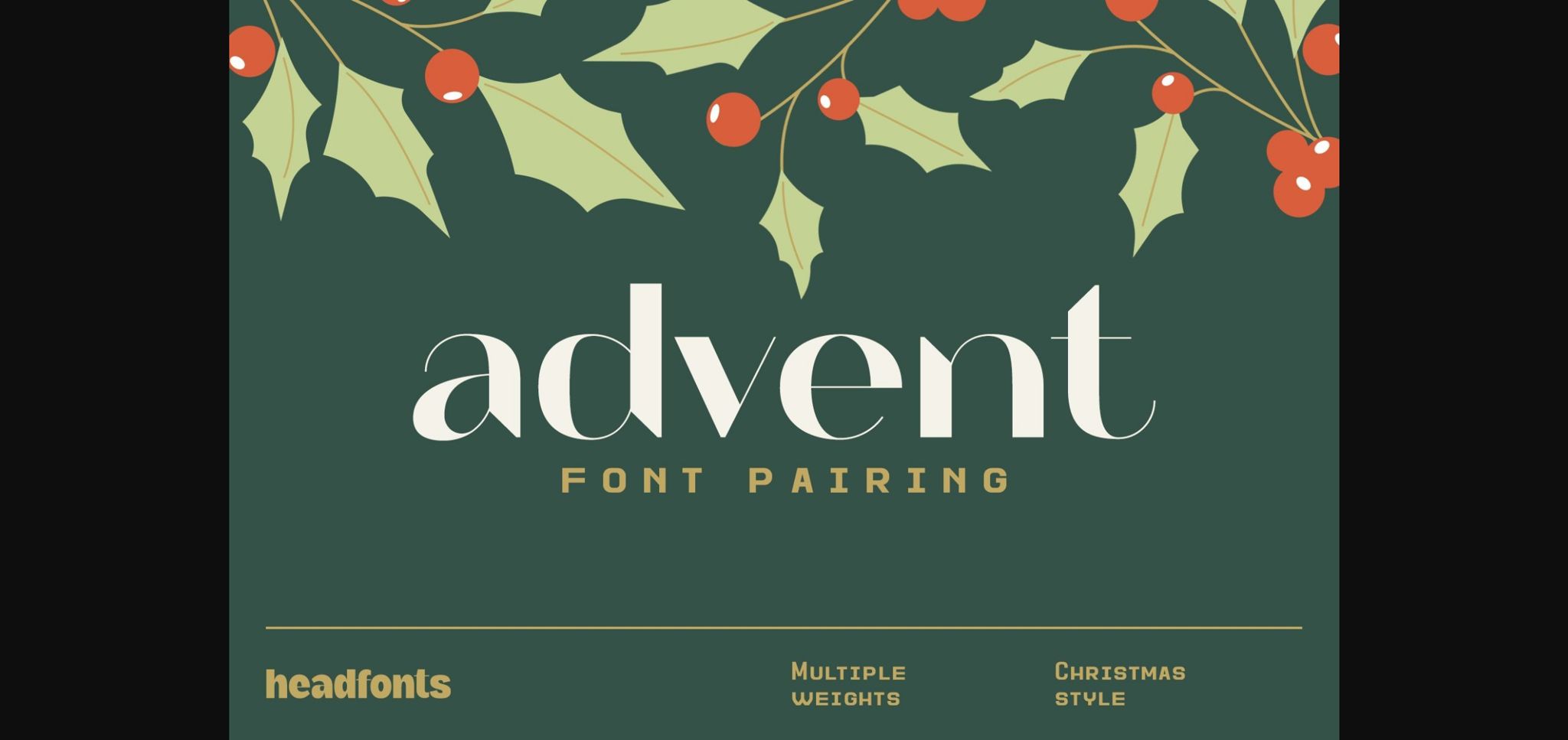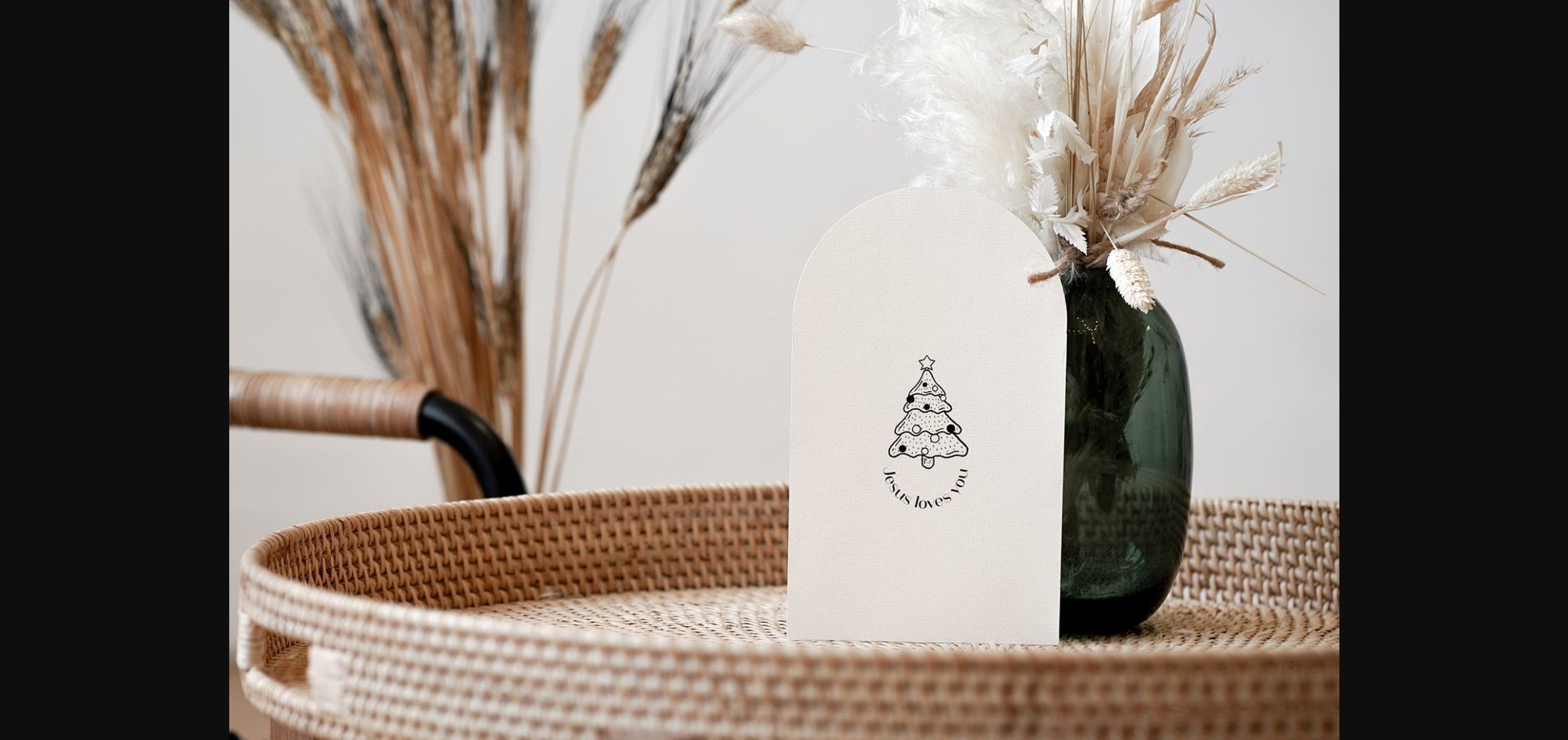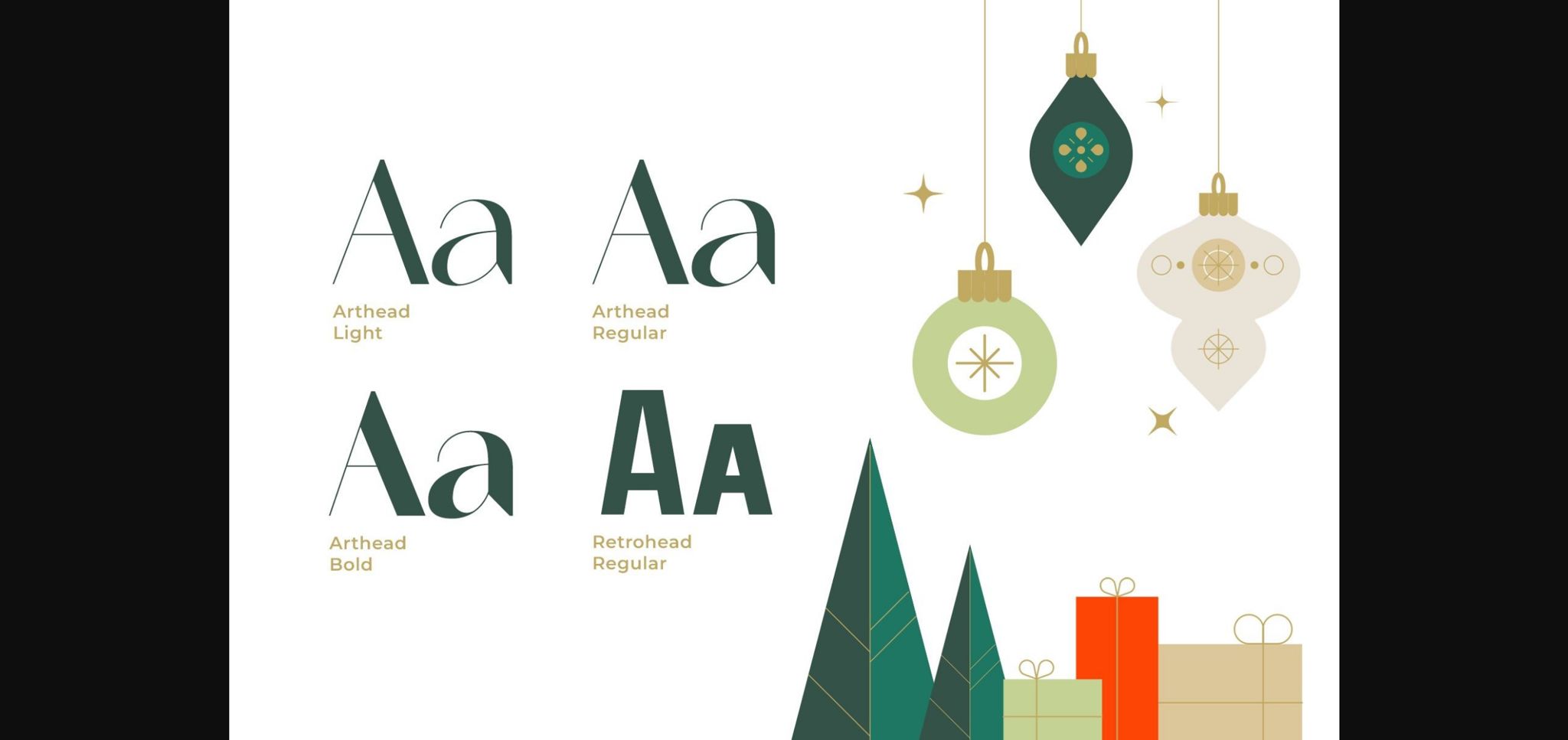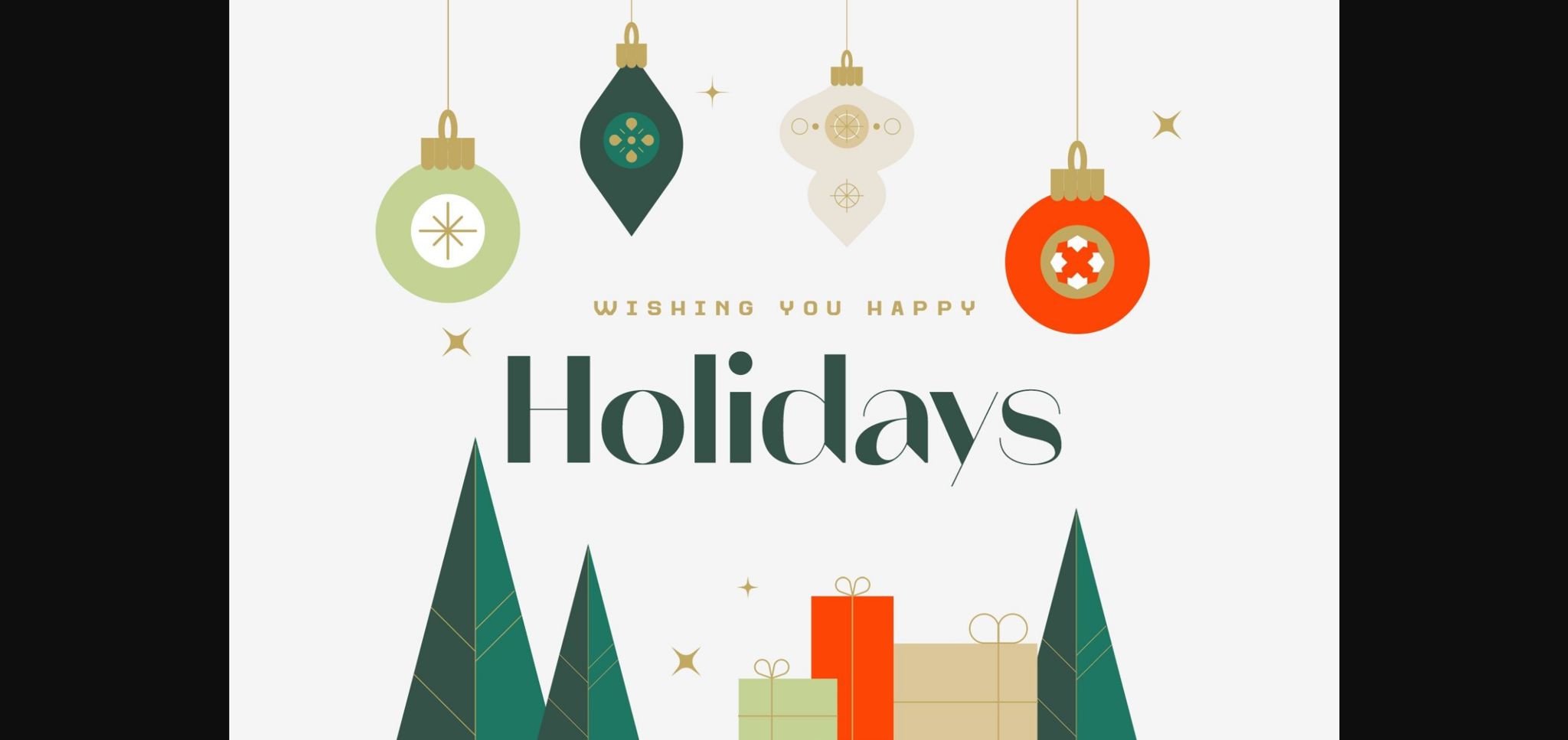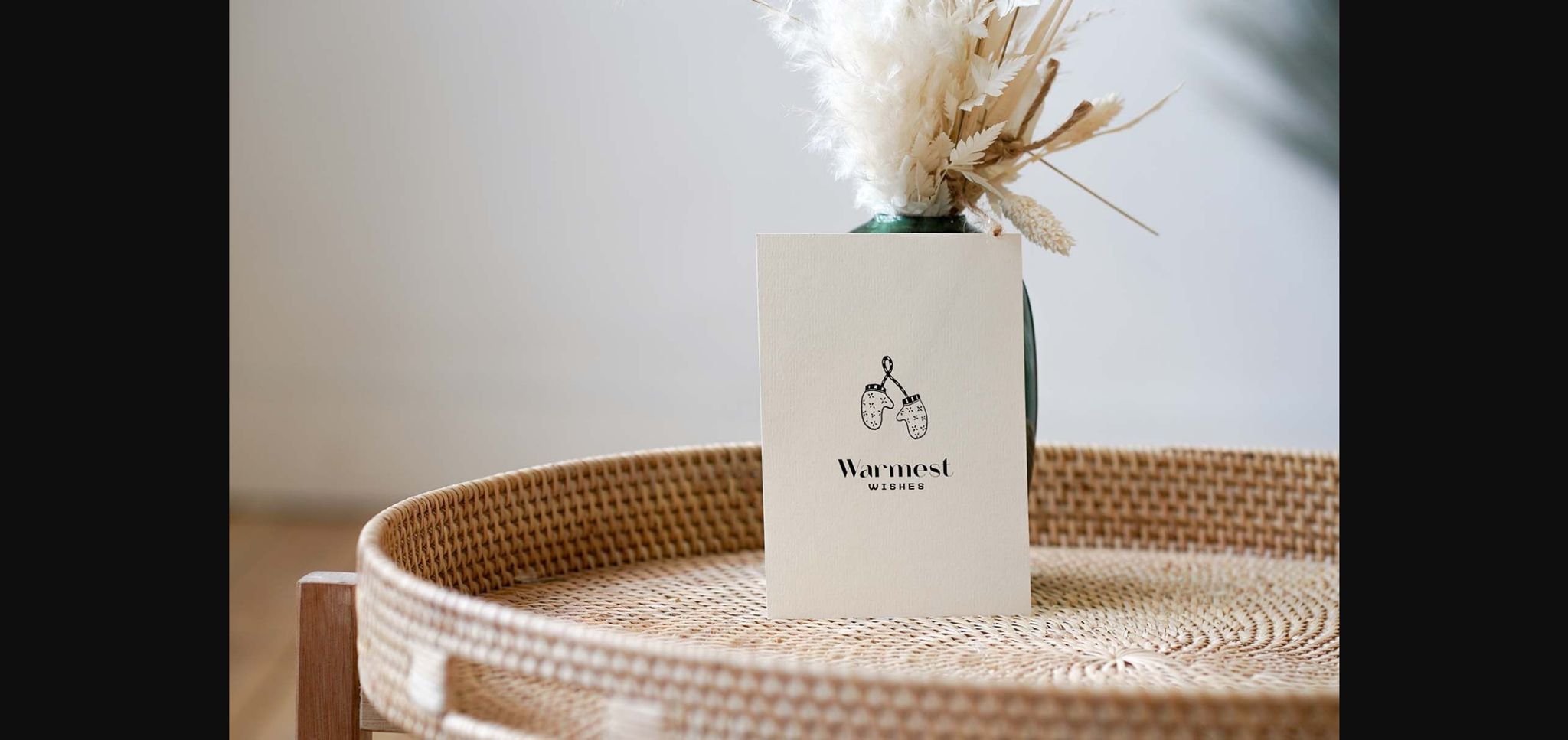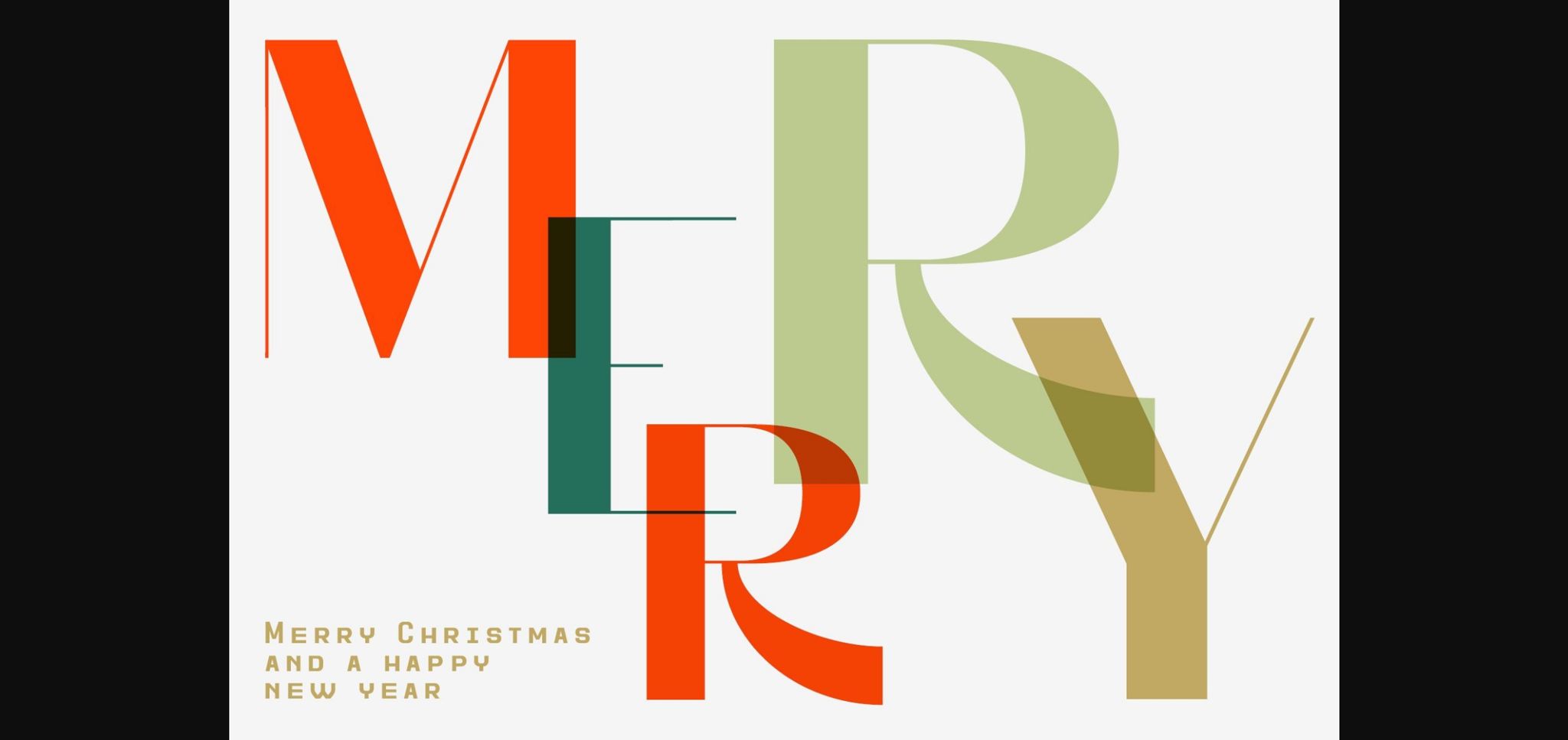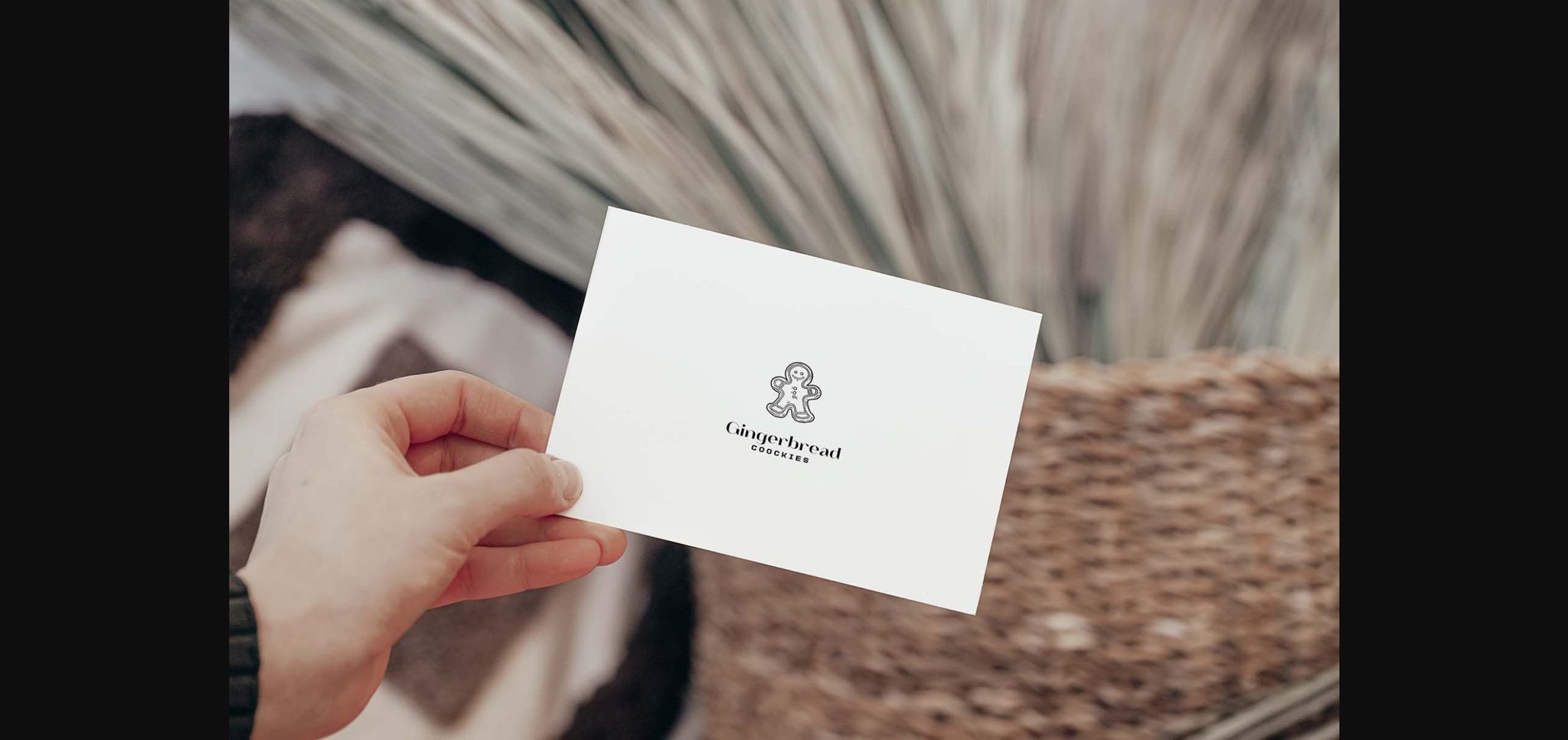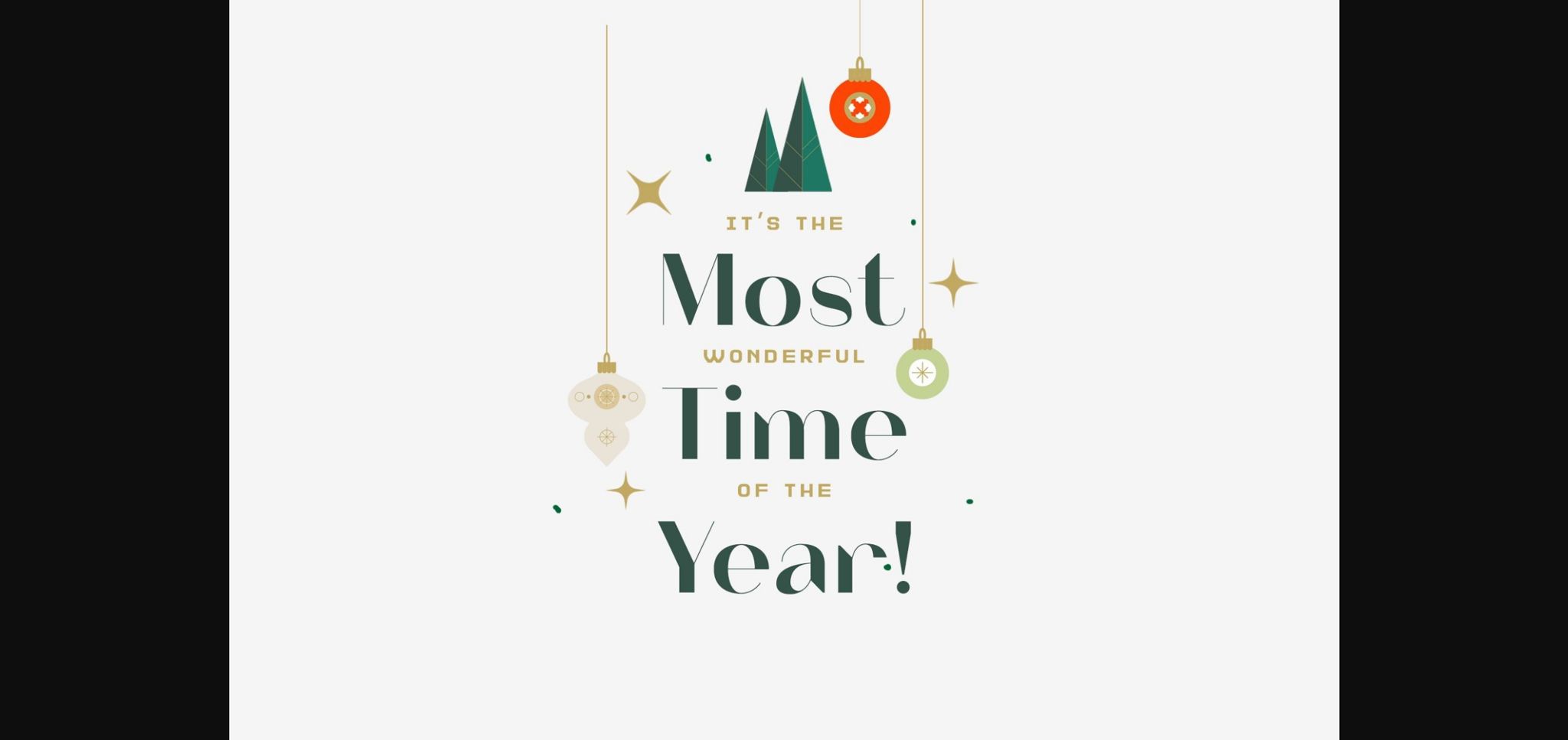
Advent Font Pairing Font
About Advent Font Pairing Font
Introducing Advent Font Pairing, a contrasting pair of festive fonts (Arthead and Retrohead). One is elegant, while the other one, is a simple and geometric sans serif, together making the best duo for your Christmas designs. This pairing is versatile, being a combination of exquisite and industrial elements in four styles.
You can use this merry and bright duo for almost any festive design project that requires a glamorous, decorative touch.